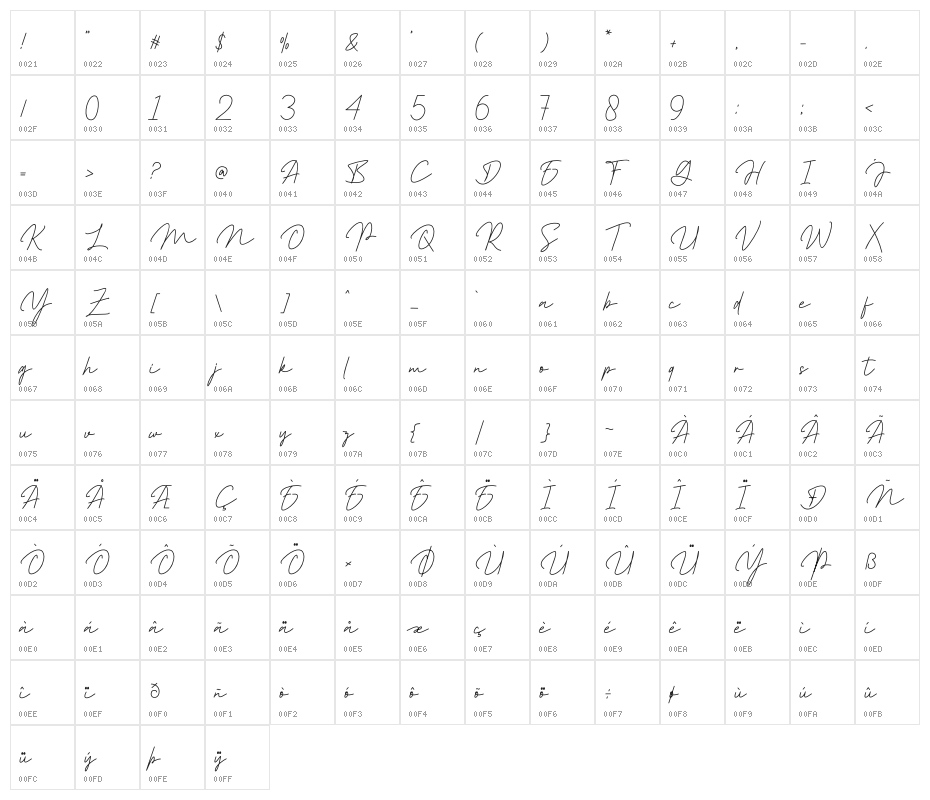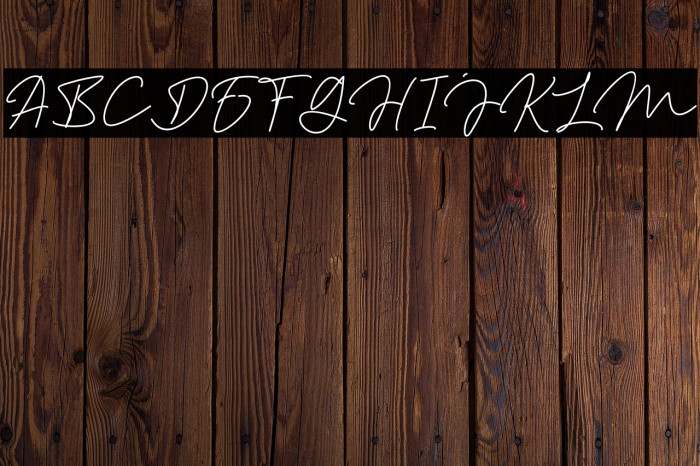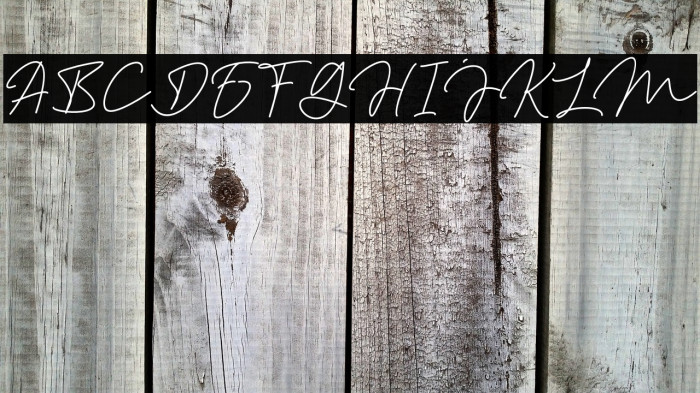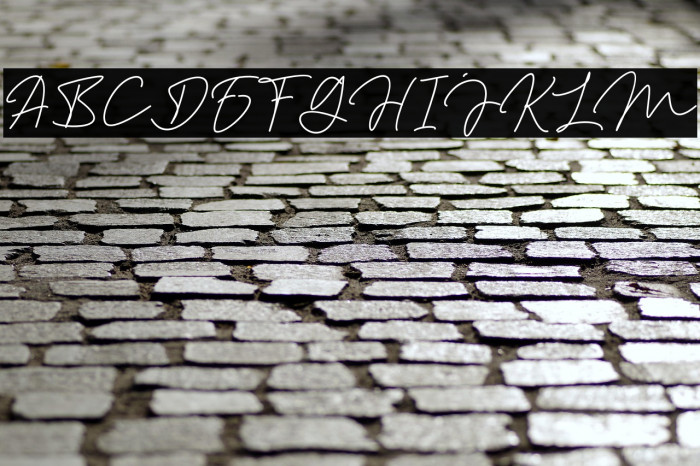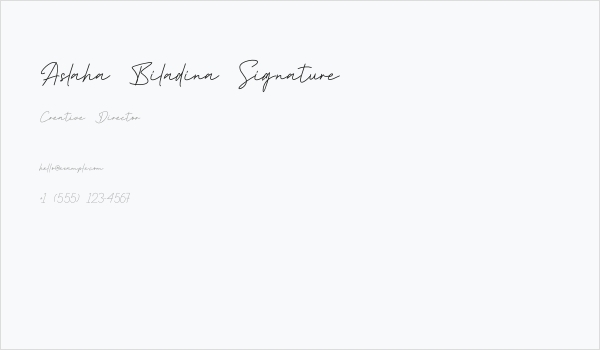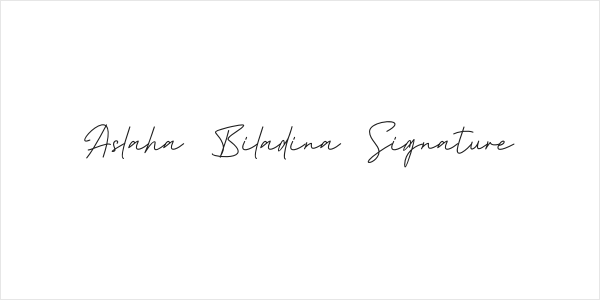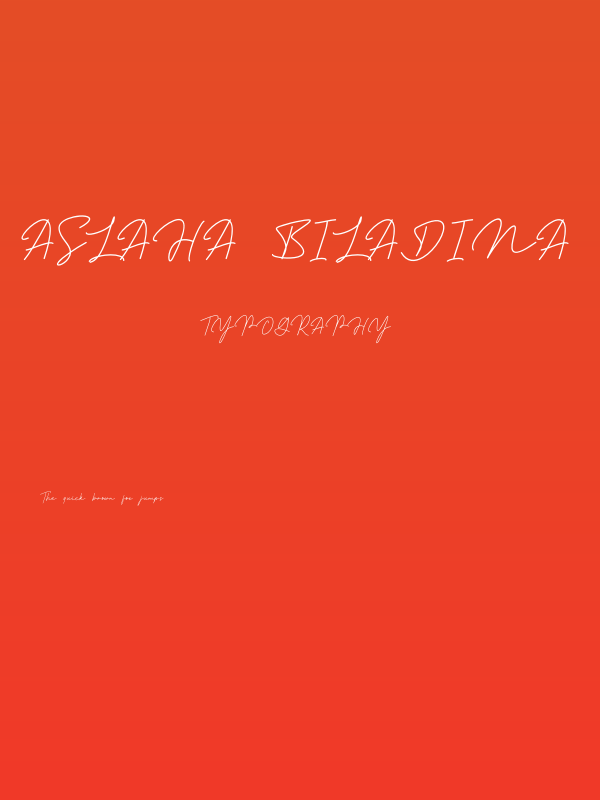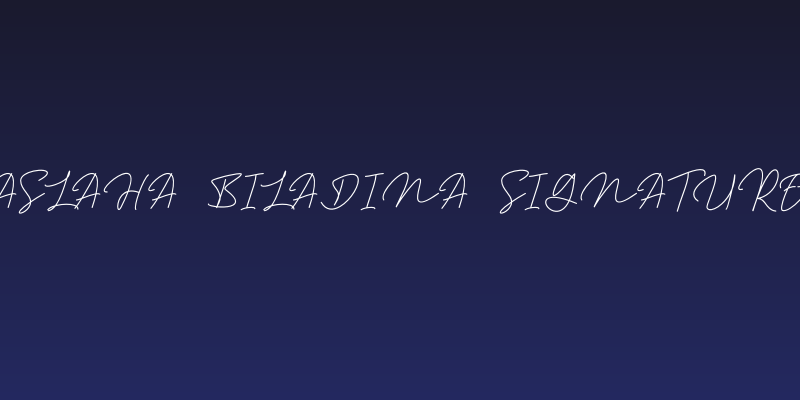
Aslaha Biladina Signature Font
Aslaha Biladina Signature Description
This font exudes elegance and sophistication with its fluid, cursive style. The letters are gracefully connected, creating a seamless flow that mimics natural handwriting. The uppercase letters are slightly more ornate, with subtle flourishes that add a touch of flair. The lowercase letters maintain a consistent height, contributing to a harmonious appearance. Numerals are clear and legible, complementing the overall aesthetic. The special characters are thoughtfully designed, ensuring they blend seamlessly with the rest of the font. This font is perfect for projects that require a personal touch, such as invitations, greeting cards, or branding materials.
| Proposed Projects | Ideal for wedding invitations, personal branding, and elegant stationery. |